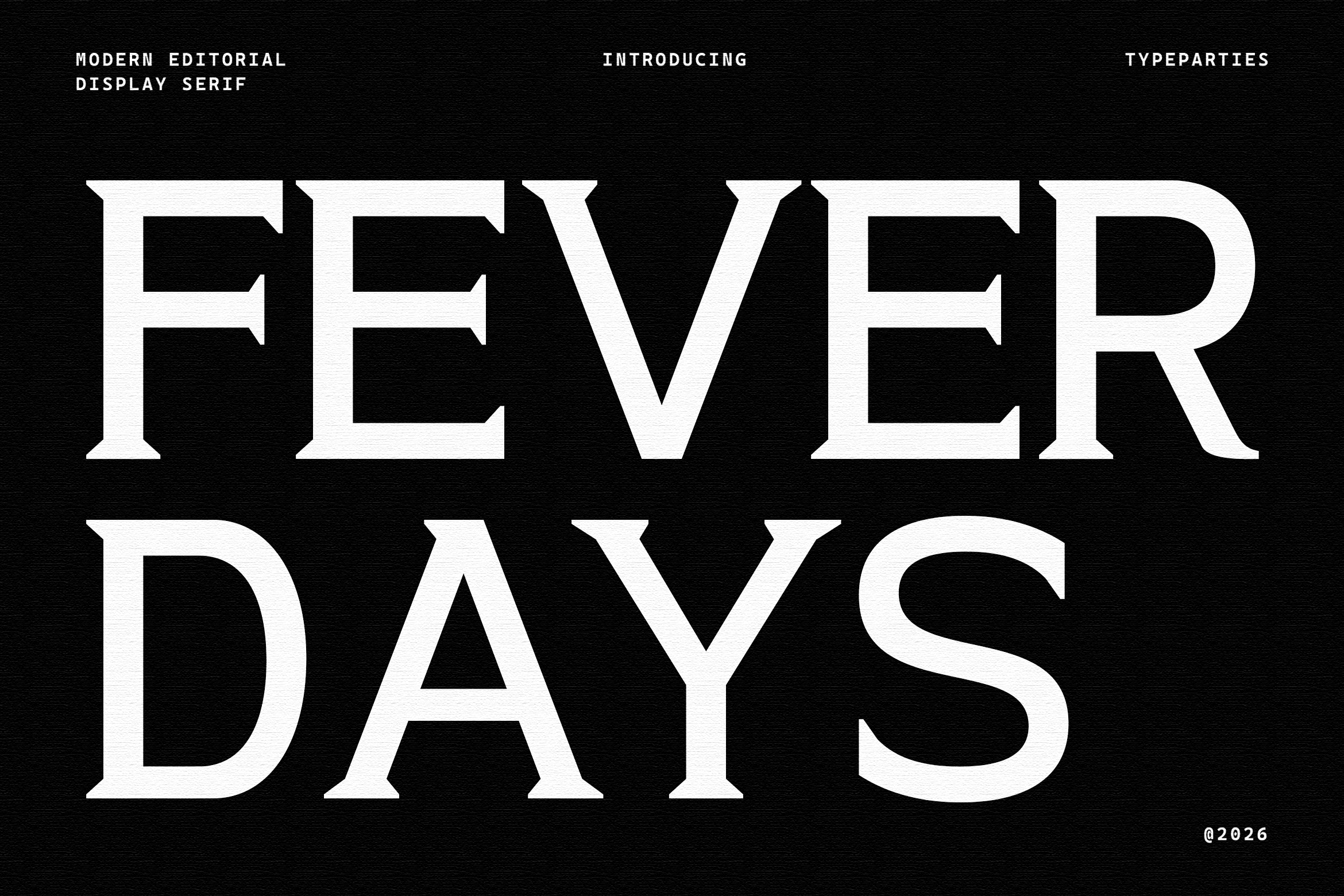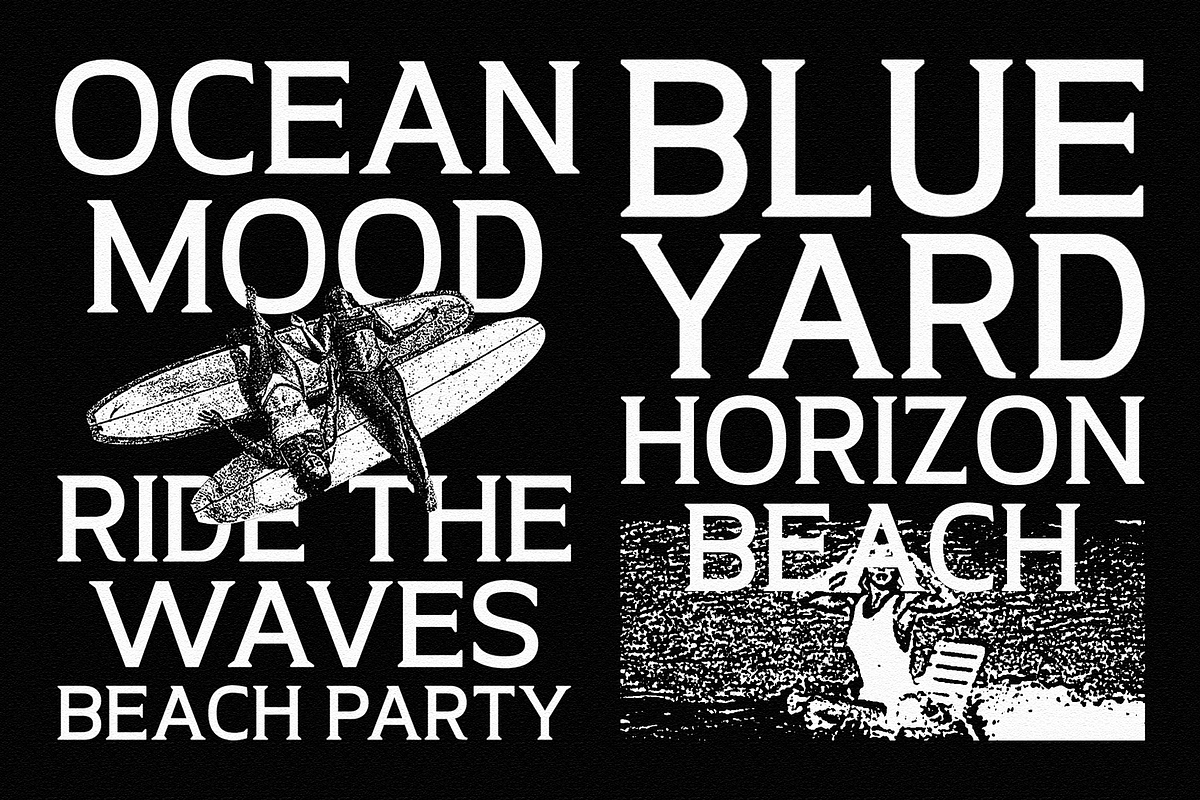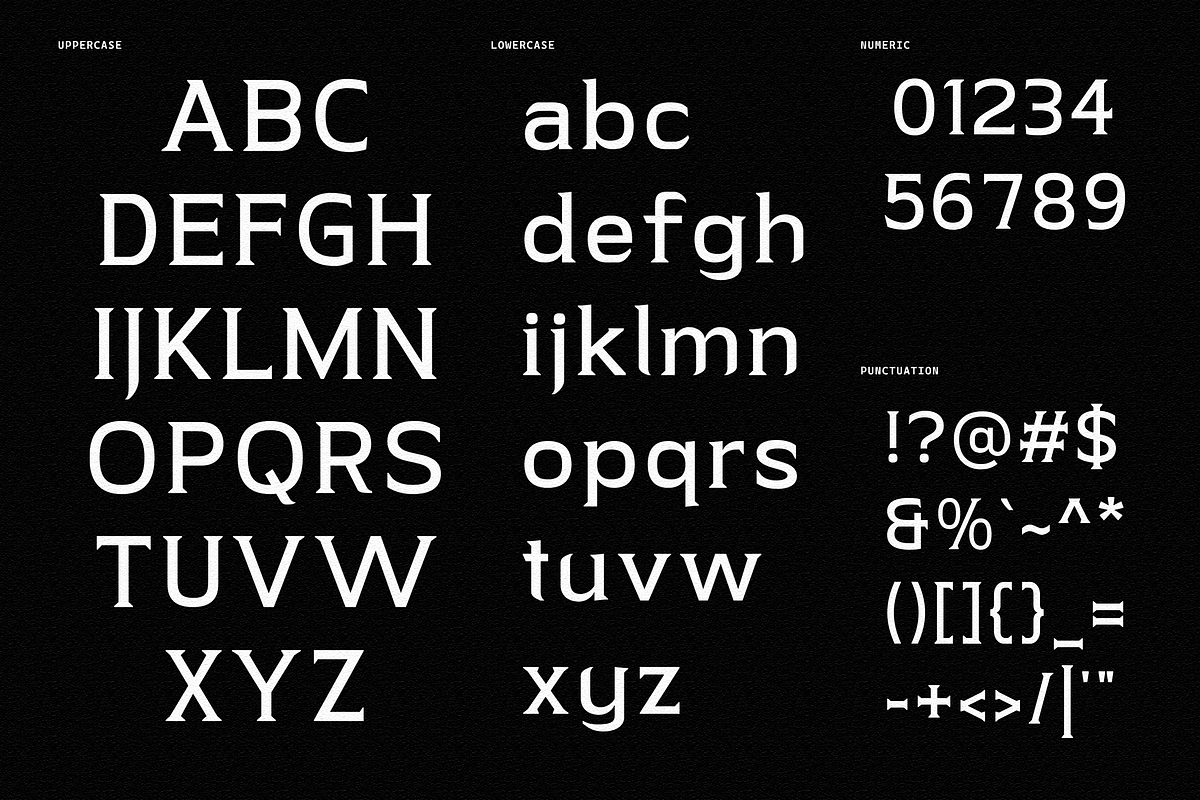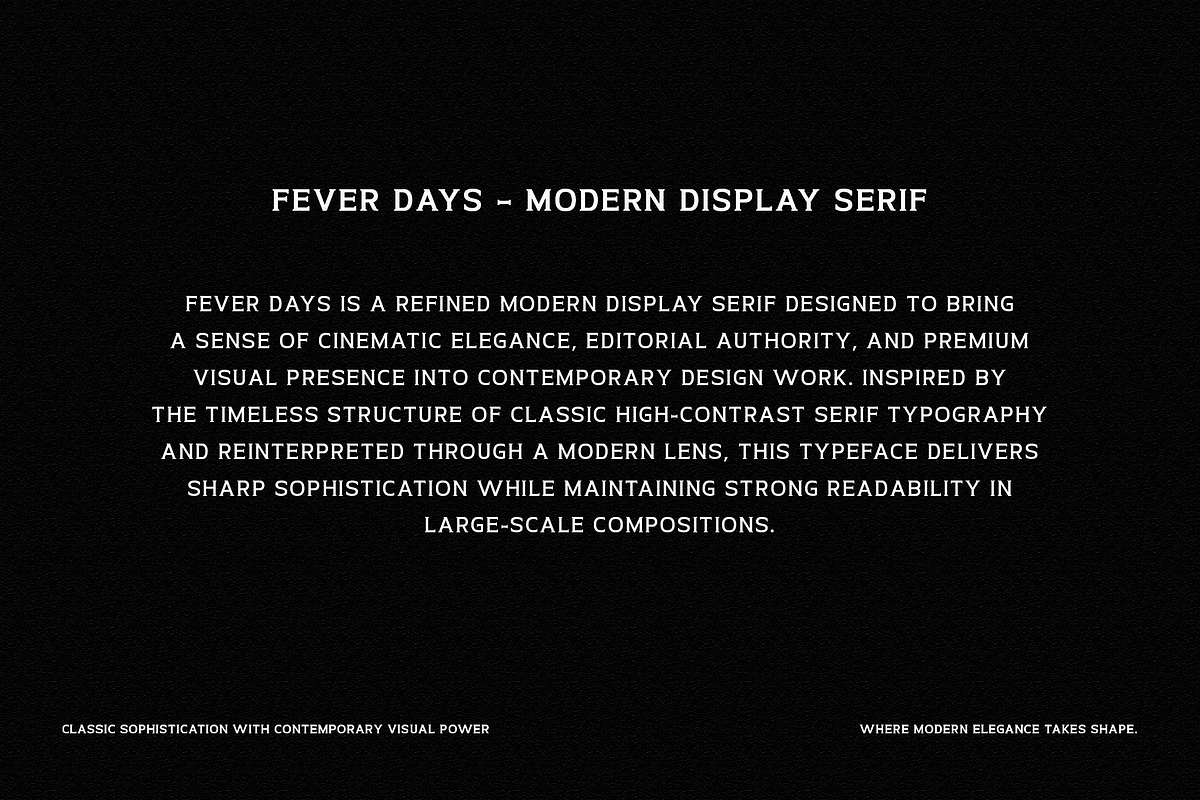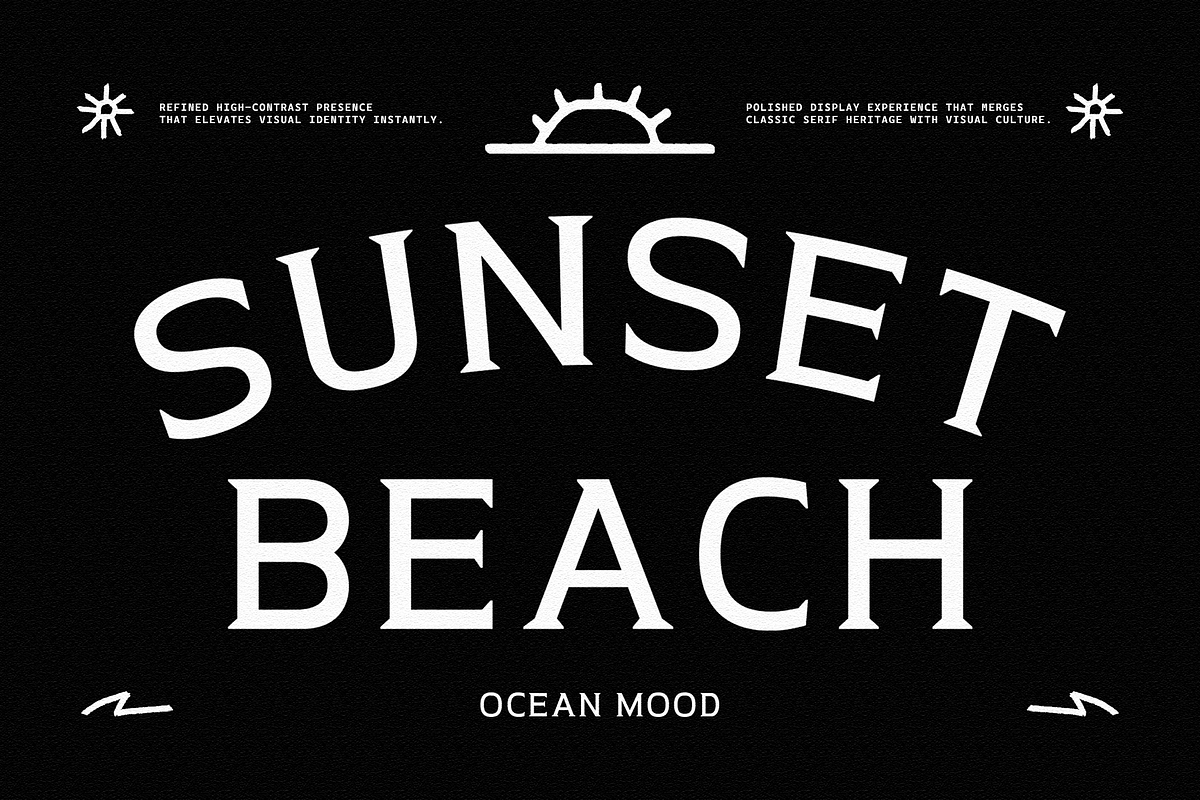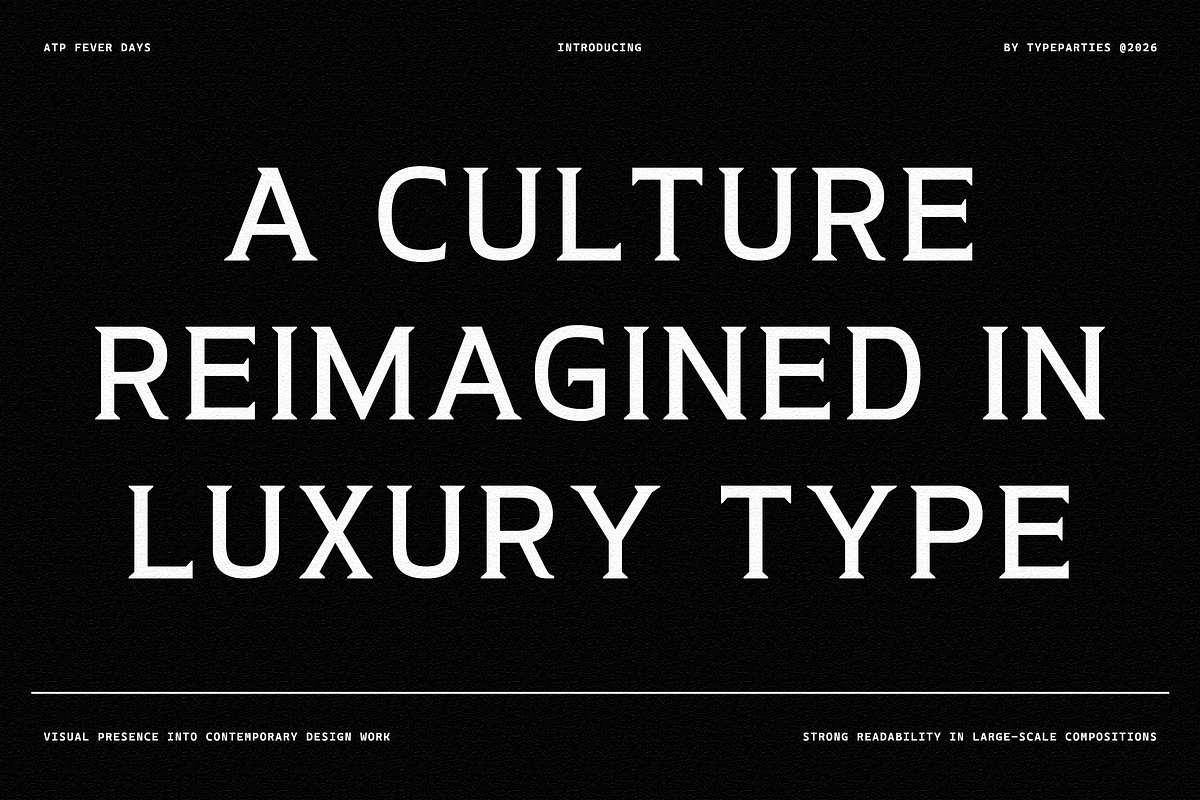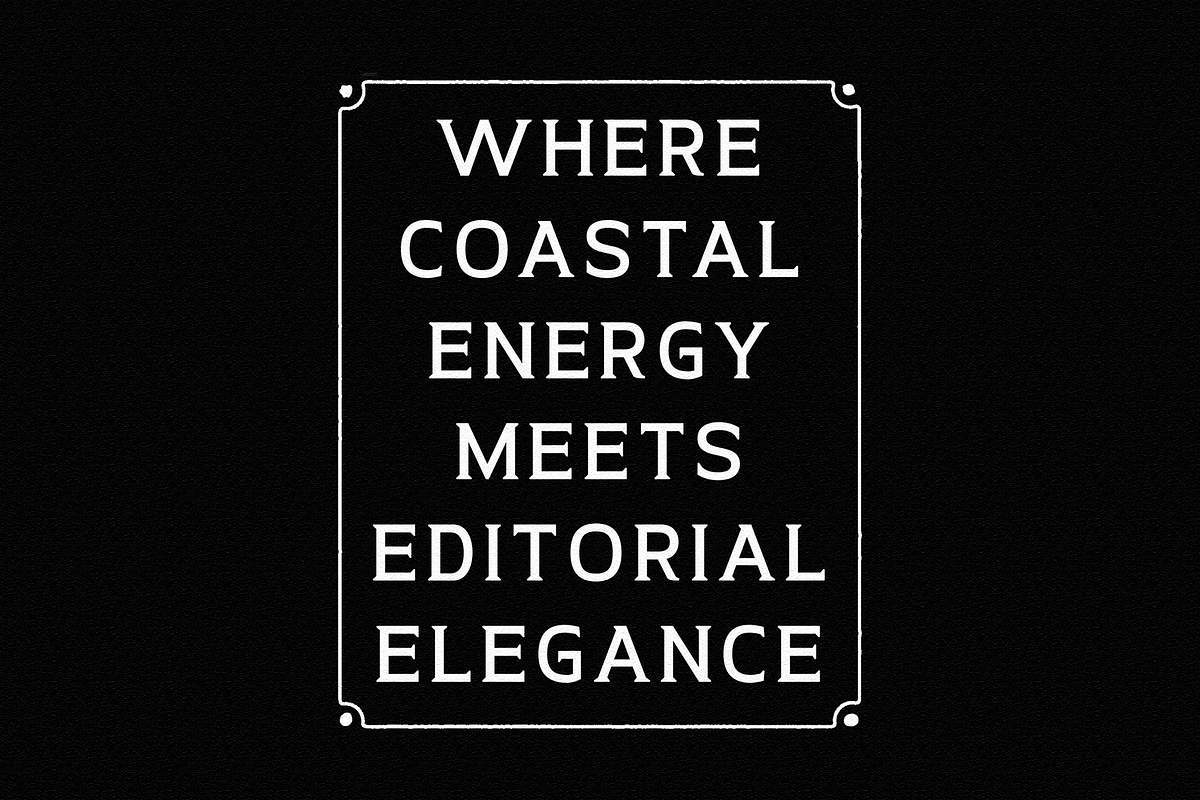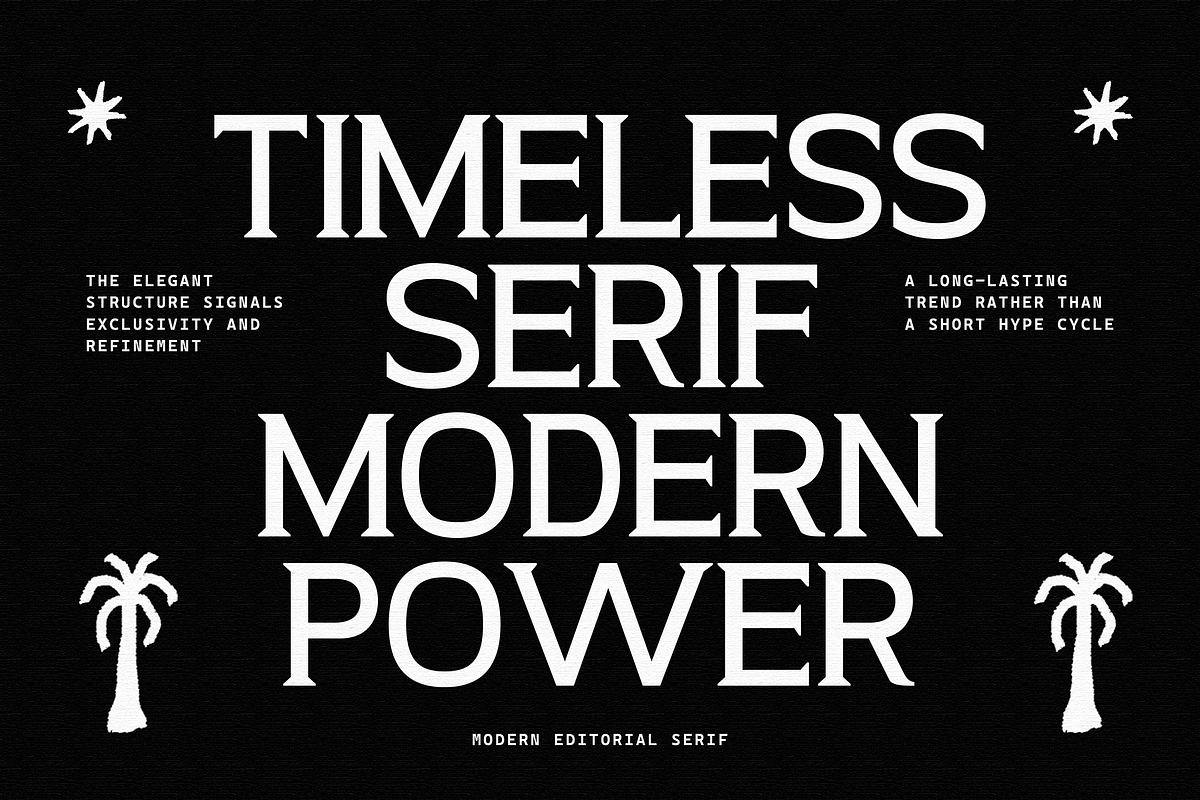
Fever Days – Modern Display Font
Fever Days is a refined modern display serif designed to bring a sense of cinematic elegance, editorial authority, and premium visual presence into contemporary design work. Inspired by the timeless structure of classic high-contrast serif typography and reinterpreted through a modern lens, this typeface delivers sharp sophistication while maintaining strong readability in large-scale compositions.
Carefully crafted letterforms feature sculpted serifs, balanced proportions, and dramatic thick–thin contrast, creating a striking visual rhythm that instantly draws attention. Every curve, terminal, and serif edge has been shaped to ensure clarity and consistency across headlines, logos, and branding systems, allowing designers to build identities that feel both timeless and distinctly modern.
Features Uppercase Lowercase Numerics Punctuation Multilingual